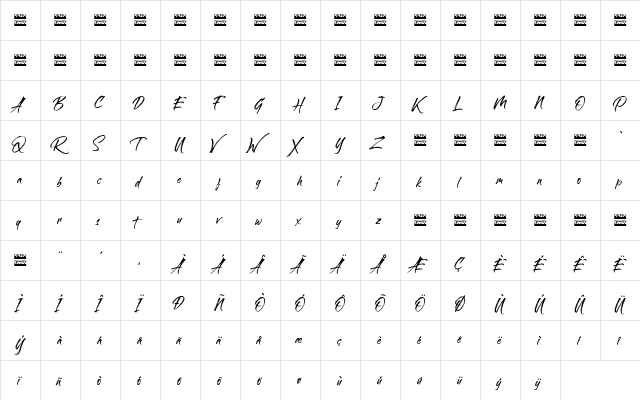
Sandbrush Demo Regular
| Foundry | Typia Nesia |
| Designer | Arief Setyo Wahyudi |
Design Context for Sandbrush Demo Typeface
Sandbrush Demo flows with the natural rhythm of handwritten lettering, making it ideal for designs that call for warmth and personal expression.
Font Pairing: Combine Sandbrush Demo with a simple geometric sans for maximum contrast — the tension between flowing curves and clean structure is a classic typographic pairing.
Pro Tip: Pair Sandbrush Demo with a clean sans-serif for supporting text. The contrast between fluid script and geometric structure creates an elegant typographic hierarchy.